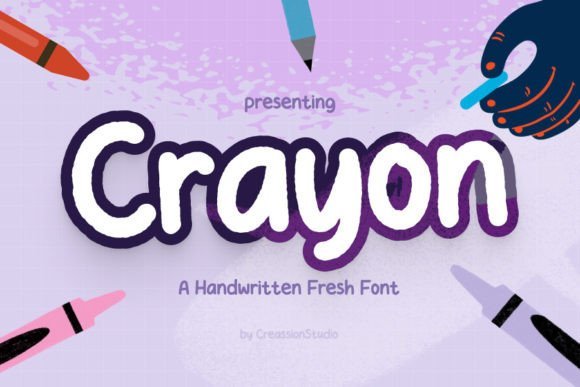
Colorful Inspiration: The Joy of Crayon Font
Who hasn’t felt the rush of creativity when rummaging through a box of crayons, unleashing a kaleidoscope of colors on a blank sheet of paper? The smell of wax, the feel of the crayon gliding across the page, and the sense of accomplishment as a vibrant artwork takes shape. It’s moments like these that spark our imagination and inspire us to bring our ideas to life.
For designers, finding the perfect font to match the playful spirit of a project can be a challenge. That’s where Crayon Font comes in – a charming, brushed, and chic display font that’s perfect for adding a touch of whimsy to classroom decorations, kids’ artwork, or even sticker designs. With its ease of readability, Crayon Font is a valuable asset for designers looking to create engaging and interactive designs.
Crayon Font Key Features
- Font Family: Crayon is a display font, available in 6 different styles (Regular, Italic, Bold, Bold Italic, Outline, and Fill) to provide a wide range of creative options.
- Unique Characteristics: The Crayon Font is designed to resemble a child’s crayon drawing, featuring rough, hand-drawn lines and vibrant colors, adding a playful and creative touch to any design.
Crayon Font Review
First off, I love the playful vibe of the Crayon Font. ✨ It’s perfect for adding a touch of whimsy to children’s books, educational materials, or even brand identities that want to appeal to a younger audience. The font’s rounded edges and gentle curves give it a friendly, approachable feel that’s hard to resist.
- Works well for: children’s content, educational materials, playful brand identities, and retro-inspired designs
- Features a unique, hand-drawn aesthetic that sets it apart from more generic sans-serif fonts
- Can be used for both body text and headings, depending on the design context
However, there are some limitations to consider. ⚠️ The Crayon Font may not be the best choice for projects that require a lot of precision or professionalism, as its playful nature can come across as unpolished or immature in certain contexts.
Overall, I think the Crayon Font is a great addition to any designer’s toolkit. It’s perfect for projects that need a bit of personality and charm, and its versatility makes it a great choice for a wide range of design applications.
Getting the Most Out of Crayon Font
To get the most out of the Crayon Font, try the following tips:
- Experiment with different font sizes and styles to achieve a unique look.
- Combine the Crayon Font with other fonts to create a visually appealing contrast.
- Use the Crayon Font for headings or titles to add a touch of whimsy to your design.
The Crayon Font is ideal for:
- Children’s book illustrations or storybooks.
- Party invitations or decorations.
- Summer camp or school project materials.
Alternatives to Crayon Font for Designers
Great Vibes is a beautiful, elegant script font perfect for creating a sophisticated and luxurious feel. It’s ideal for use in wedding invitations, luxury brands, and high-end marketing materials. Great Vibes has a similar flowing and handwritten feel to Crayon Font, but with a more refined and polished look.
Comparison to Crayon Font: While Crayon Font has a more playful and childlike feel, Great Vibes is more elegant and sophisticated. Great Vibes is a better choice when you need to convey a sense of luxury and high-end quality.
Carolyna Pro is a modern script font with a unique and stylish feel. It’s perfect for use in fashion, beauty, and lifestyle branding, as well as in marketing materials that require a touch of elegance. Carolyna Pro has a similar flowing feel to Crayon Font, but with a more modern and trendy look.